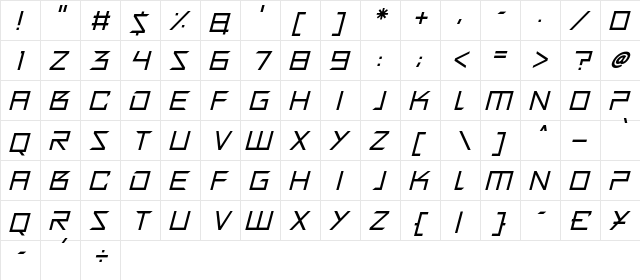
Quirky Robot Italic
Design Context for Quirky Robot Typeface
Quirky Robot is a composed and adaptable typeface that performs quietly and consistently across a wide range of design contexts. The slanted form adds forward momentum and visual energy.